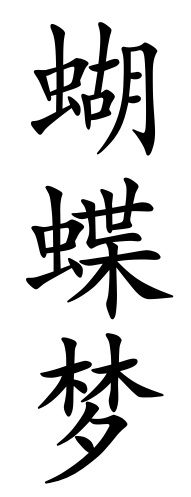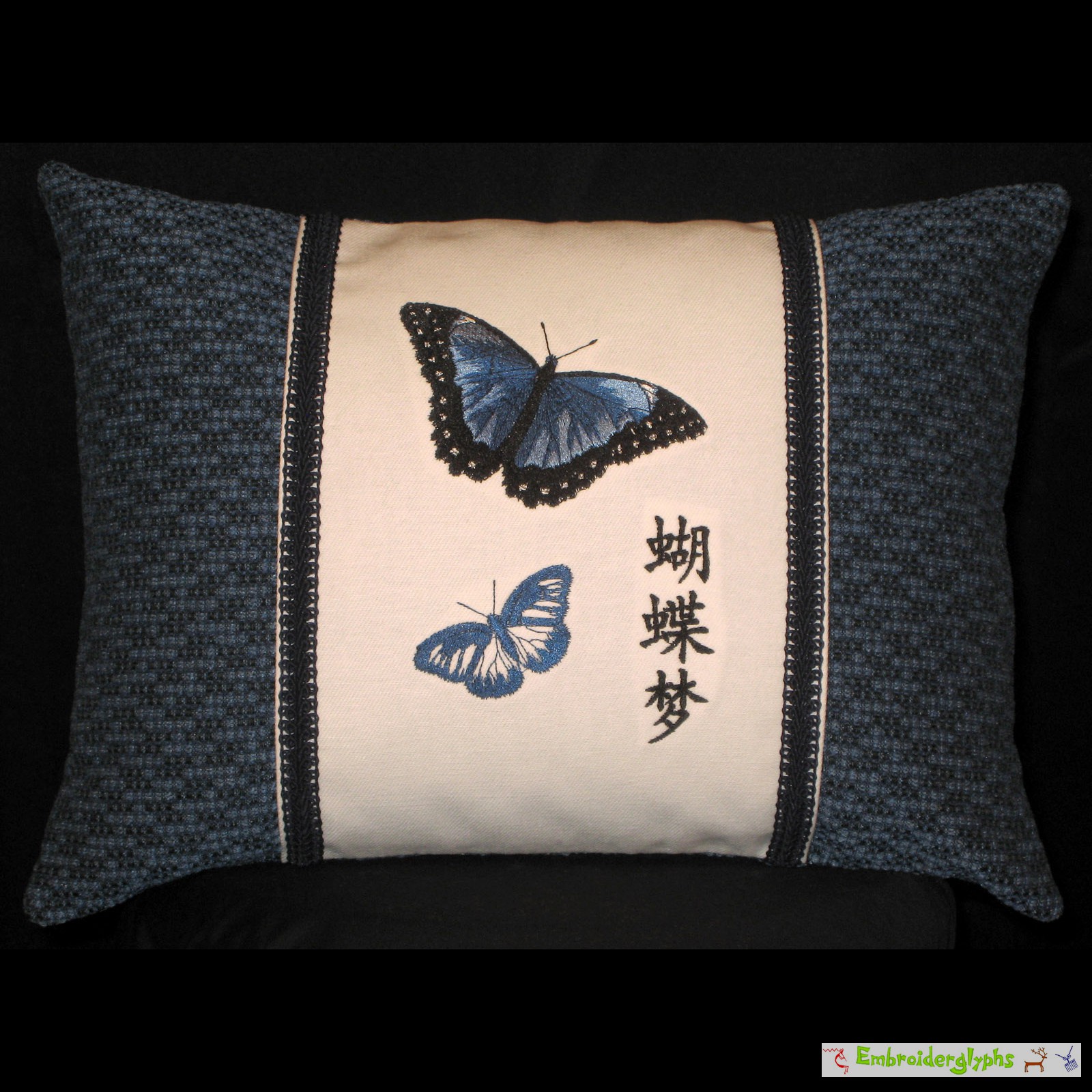
Cream & Blue Embroidered “Butterfly Dream” Pillow
The design has two butterflies and Chinese text.
This pillow has two stories behind it. One is for the butterflies, and another is for the Chinese Text.
Next, there is a very interesting story behind the Chinese text.
The characters are: 蝴蝶夢 (Translation at www.archchinese.com.)
The first character is: 蝴 hú (pronounced, who). It means butterfly. The second character is: 蝶 dié (pronounced, dee-ah). It also means butterfly. The third character is: 夢 mèng (pronounced, mong). This means: dream, visionary, wishful.
The type of calligraphy used — its “font” — is a simplified font that has nice curves, is elegant, and digitizes well. This is not a machine font that is built into an embroidery machine. Each character was hand-digitized by John. Each character's strokes actually stitch out in the correct order, as if a professional Chinese calligrapher was painting them.
Together, the three characters in the phrase means, “Butterfly Dream.”
Of course, there is a story behind this. It comes from a famous Chinese philosopher called, Chuang Tzu. (Also known as: Zhuang Zhou, or Zhuangzi.) He lived around the 4th century BCE. In one of his books he wrote:
“Once Zhuangzi dreamt he was a butterfly, a butterfly flitting and fluttering around, happy with himself and doing as he pleased. He didn't know he was Zhuangzi. Suddenly he woke up and there he was, solid and unmistakable Zhuangzi. But he didn't know if he was Zhuangzi who had dreamt he was a butterfly, or a butterfly dreaming he was Zhuangzi. Between Zhuangzi and a butterfly there must be some distinction! This is called the Transformation of Things.” (Wikiquote) (Translated, Burton Watson 1968:49)
Because of his philosophy, the phrase “Butterfly Dream” is well known by people that study philosophy or speak Chinese.
Personally, this a classic line of reasoning and philosophy that John enjoys. You may wish to do an online search and read more about “Butterfly Dream.”
Anyhow, this pillow combines, elegance, beauty, butterflies, and an interesting bit of ancient Chinese philosophy.
Beth created the pillow design. She uses great computerized embroidery and sewing machines for the bulk of the work, then hand-sews the final side shut.